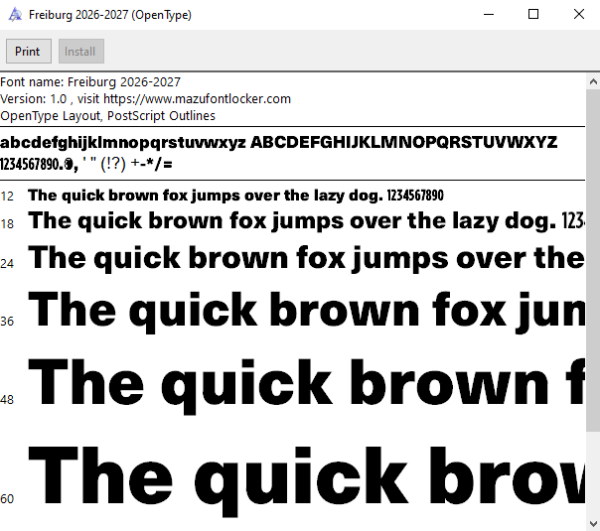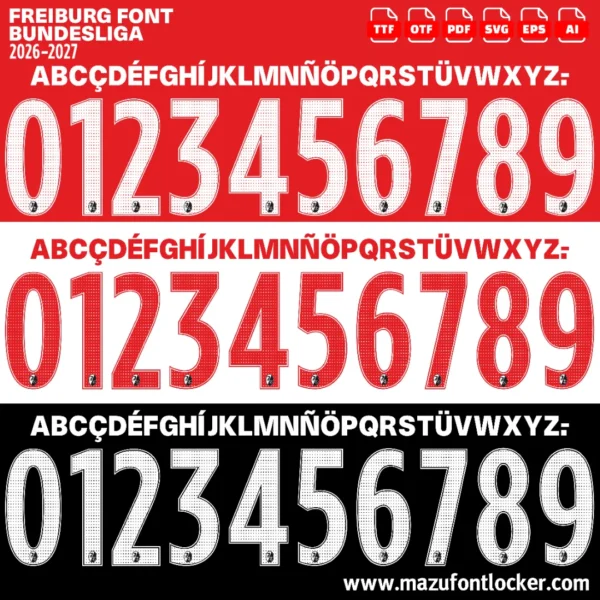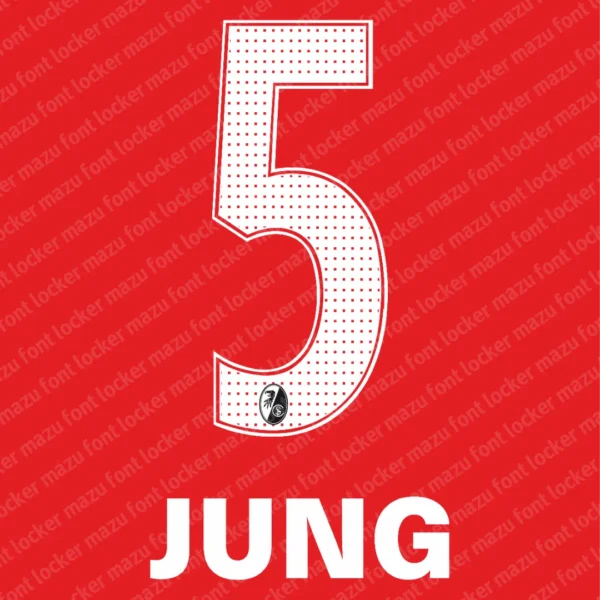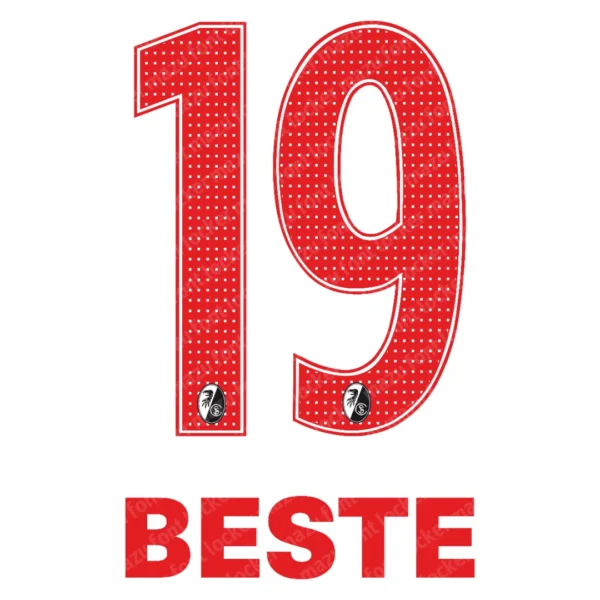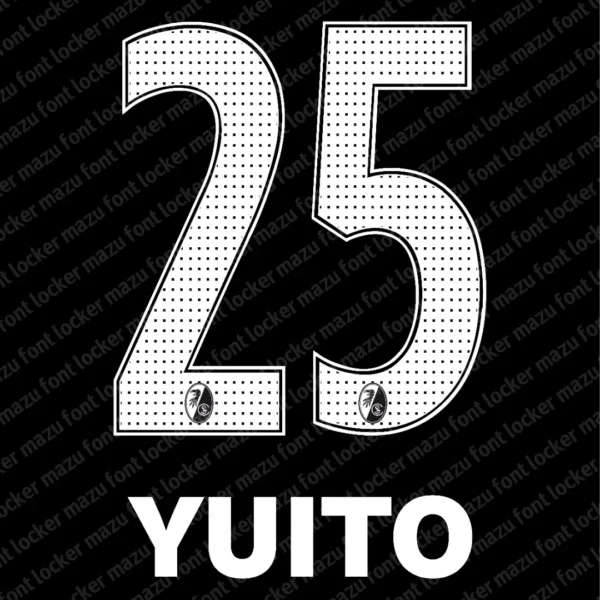
Freiburg 2026-2027 Font Vector – Stunning Black Forest Masterpiece
This font captures the powerful, modern, fearless, and precision-crafted lettering that perfectly reflects SC Freiburg’s enduring tradition, relentless work ethic, and competitive Bundesliga spirit, delivering unmatched authenticity, premium quality, dynamic energy, and official German football style for professional jersey mockups, football graphics, sports branding, passionate fan creations, and high-end design projects.
SC Freiburg 2026-2027 Font Vector – Stunning Breisgau Heritage Typeface
The SC Freiburg 2026-2027 Font Vector is a premium typeface that accurately recreates the official match lettering worn by SC Freiburg during the 2026-2027 season. This high-quality vector font kit captures the clean, modern, and distinctive typography that perfectly complements the club’s iconic red and white identity.
Designed for professional designers, football enthusiasts, and loyal Freiburg supporters, the SC Freiburg 2026-2027 Font Vector delivers exceptional authenticity for creating realistic jersey mockups, football merchandise, social media graphics, match posters, and custom fan artwork. Every character has been carefully recreated to match the official shirt lettering worn throughout the 2026-2027 Bundesliga campaign.
This font stands out thanks to its precise vector construction and authentic club styling. Every character has been meticulously recreated to match the official shirt lettering used during the 2026-2027 season. Whether you’re producing realistic kit templates or creating eye-catching football content, the SC Freiburg 2026-2027 Font Vector delivers a genuine professional appearance.
The lettering featured in the SC Freiburg 2026-2027 Font Vector combines clean geometric lines with bold contemporary proportions. The result is a premium and highly legible typeface that reflects SC Freiburg’s disciplined football philosophy, proud tradition, and modern Bundesliga identity.
The numerals feature balanced curves, sharp edges, and consistent spacing for maximum readability on jerseys and digital media. Built entirely as scalable vectors, every number remains crisp for jersey customization, posters, print production, digital artwork, and large-format graphics.
• Complete uppercase A–Z alphabet and numbers 0–9 in authentic SC Freiburg 2026-2027 style
• Special SC Freiburg badge glyph – Press the “:” (Colon) key to insert the league badge
• Includes authentic Bundesliga badge glyph placement beneath player numbers